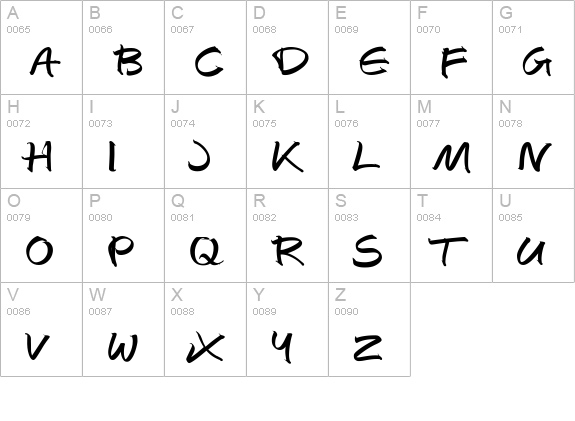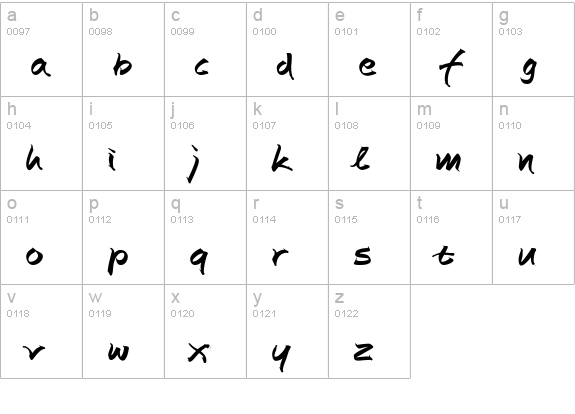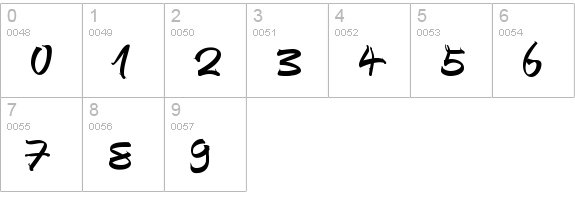
AutographScriptEF-Bold is a strong, high-contrast variant in the AutographScriptEF typeface family \xE2\x80\x94 well suited to headlines, attention-grabbing titles, and strong calls-to-action.
AutographScriptEF-Bold font is a stylish and elegant typeface that is perfect for adding a touch of sophistication to your designs. With its bold and flowing script style, this font is ideal for creating eye-catching headlines, invitations, and more. The distinctive curves and unique flourishes of AutographScriptEF-Bold make it stand out from other fonts, giving your projects a professional and polished look. The best part is that AutographScriptEF-Bold is available for free download at FontsMarket.com. You can easily access this stunning font and use it in your personal and commercial projects without any restrictions. Don't miss out on the opportunity to enhance your designs with the beauty of AutographScriptEF-Bold font - download it today and take your creations to the next level!